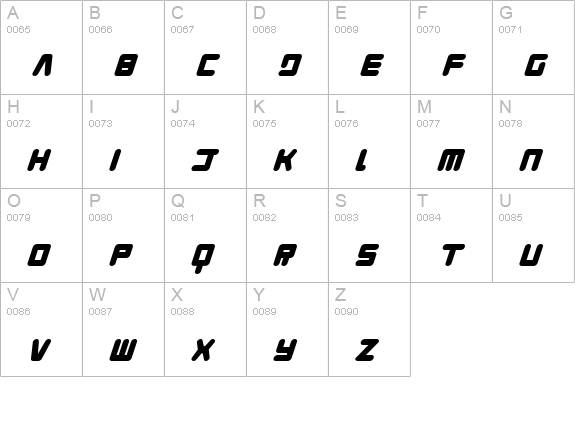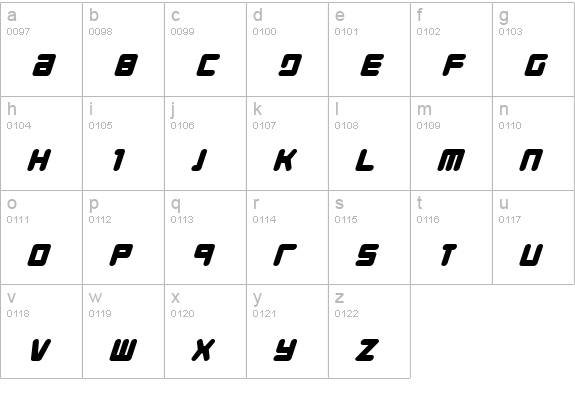
Young Techs Italic Font Details
Young Techs Italic is a distinctive, italic variant in the Young typeface family \xE2\x80\x94 well suited to design and typography projects.
Young Techs Italic font is a stylish and modern typeface that is perfect for adding a sleek and futuristic touch to your designs. With its sleek lines and contemporary design, this font is ideal for tech-related projects, branding, and digital content. The italicized version of Young Techs adds a dynamic and energetic flair to your text, making it stand out and grab attention. The best part? Young Techs Italic font is completely free to download at FontsMarket.com! This means you can easily access this high-quality font to elevate your designs without breaking the bank. So why wait? Download Young Techs Italic font today and give your projects a fresh and modern look that will impress your audience.